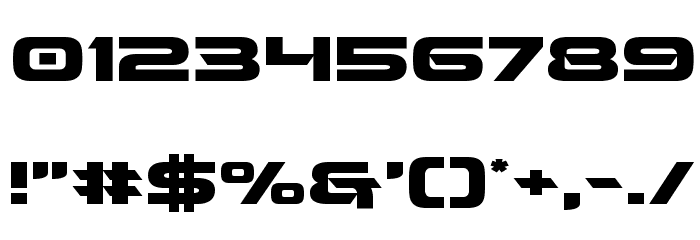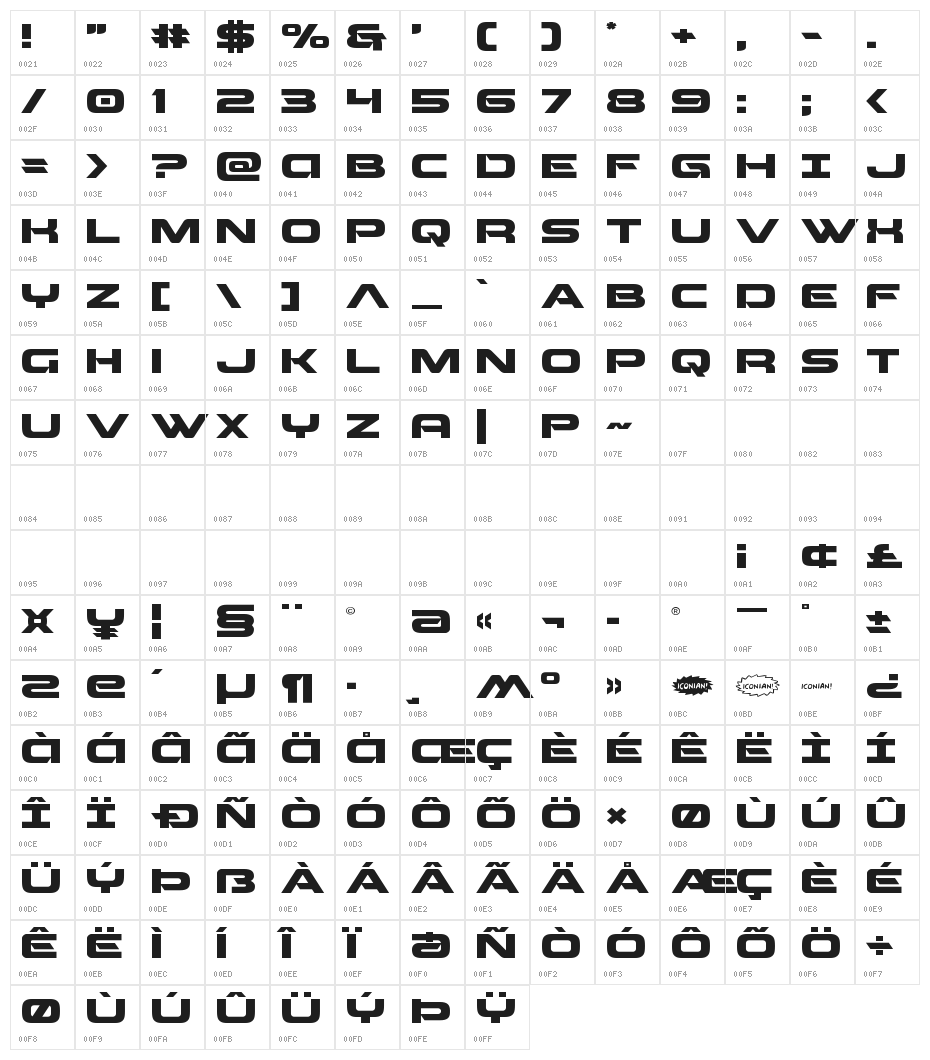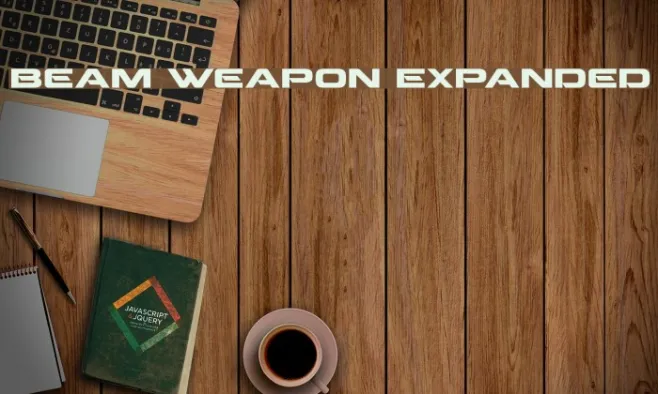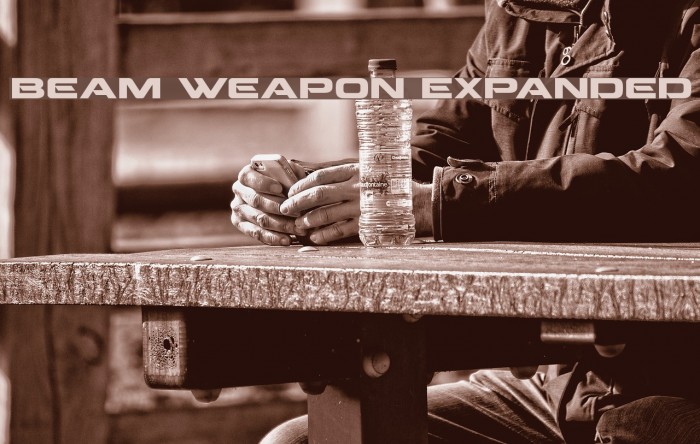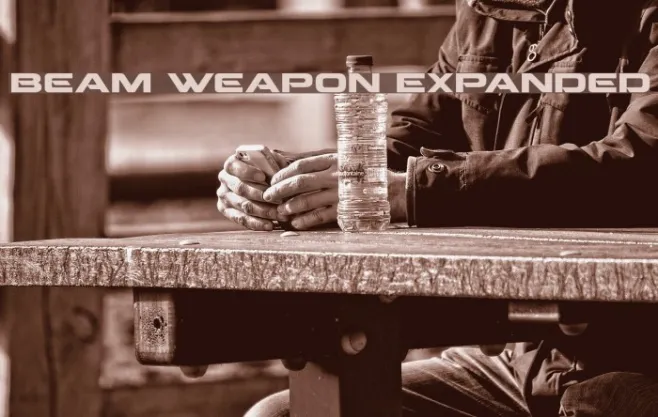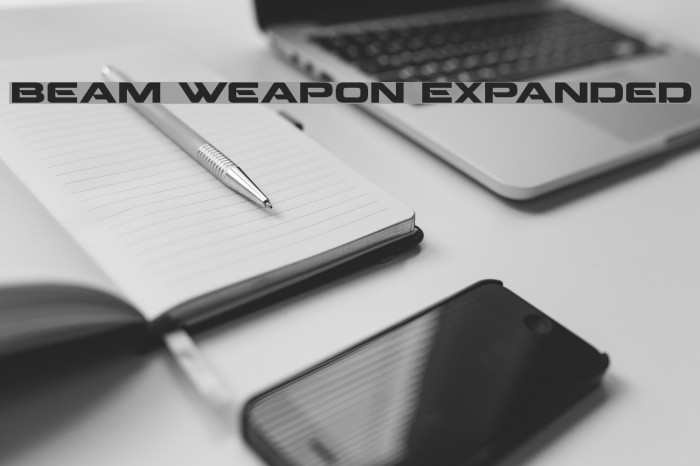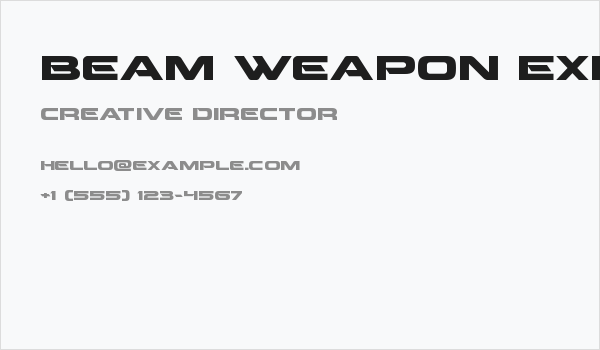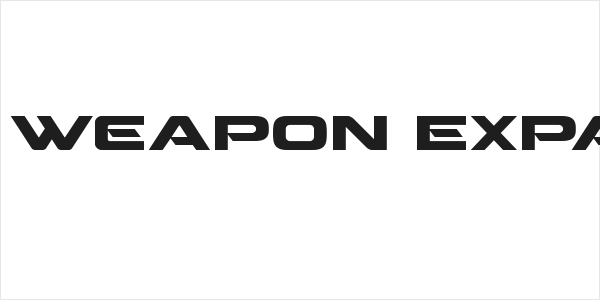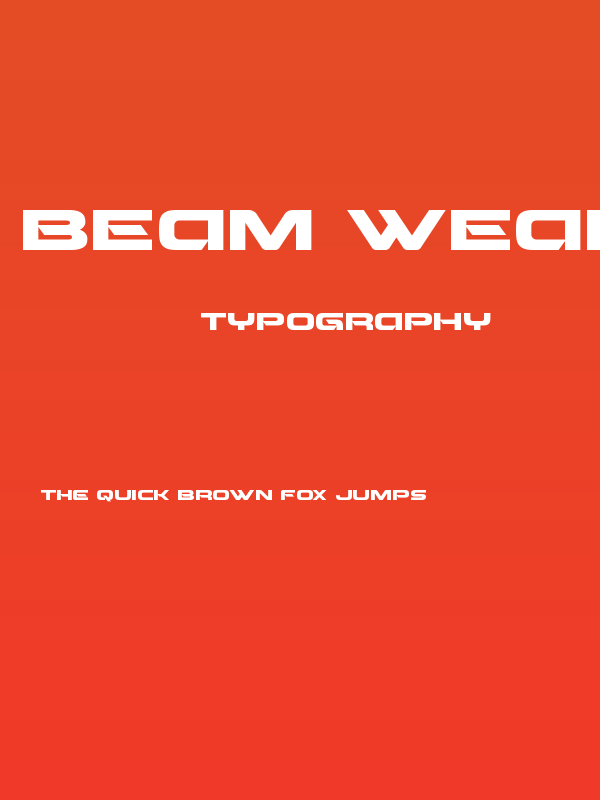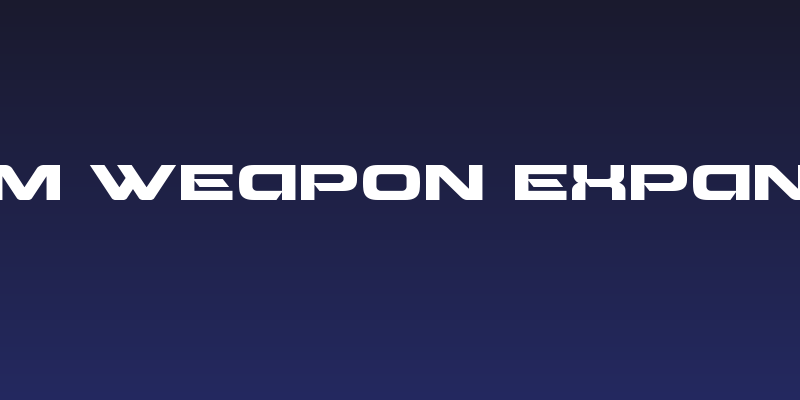
Beam Weapon Expanded Font
Beam Weapon Expanded Description
This font features a futuristic and bold design with a distinctly angular and geometric style. The characters are wide and expanded, giving a sense of strength and modernity. The uppercase letters are particularly striking, with sharp edges and a consistent thickness throughout. The numbers and special characters maintain the same bold and expansive style, ensuring uniformity across all elements. This font is ideal for projects that require a strong visual impact and a modern aesthetic.
| Proposed Projects | Ideal for sci-fi themed designs, video game titles, technology branding, and futuristic posters. |